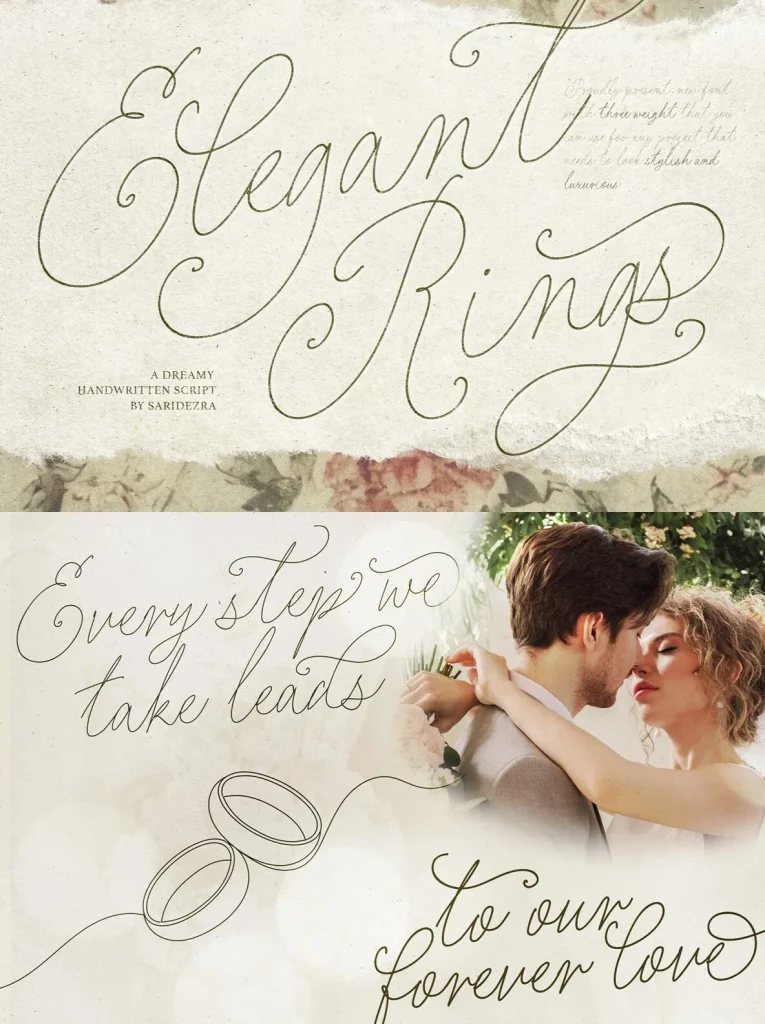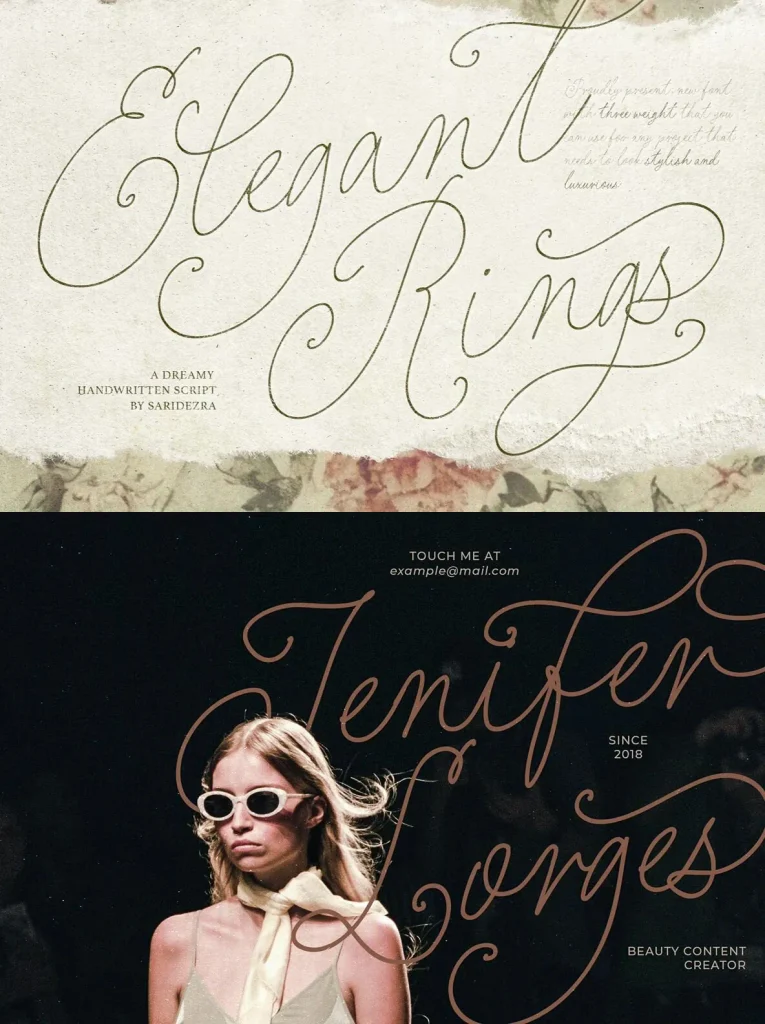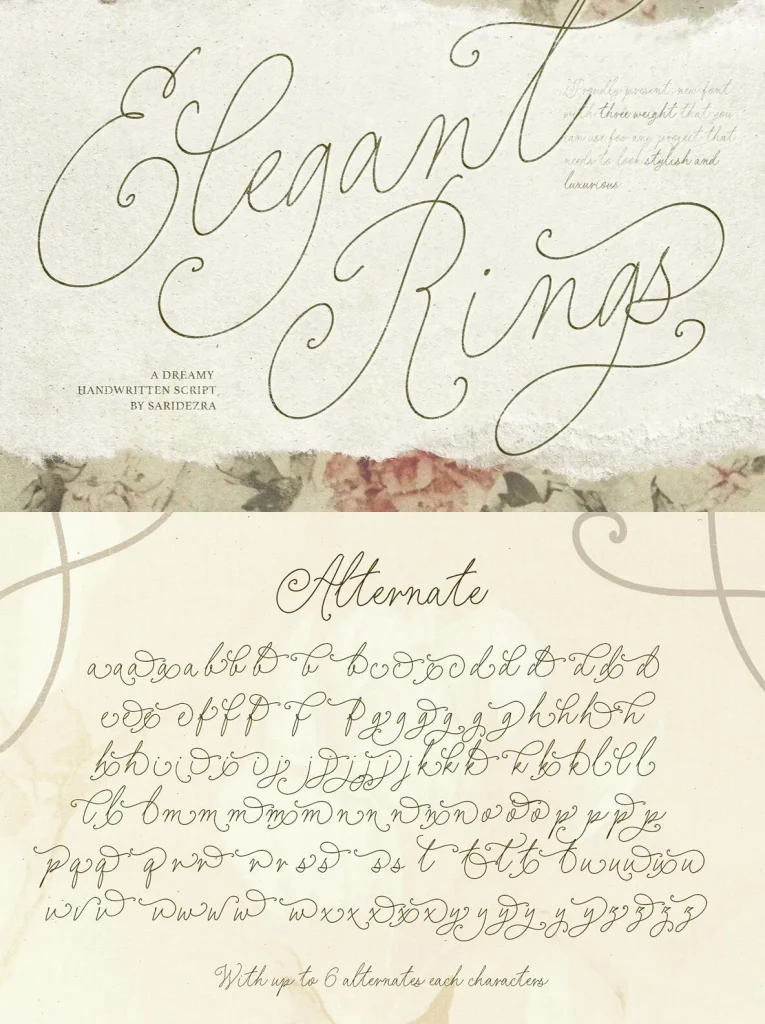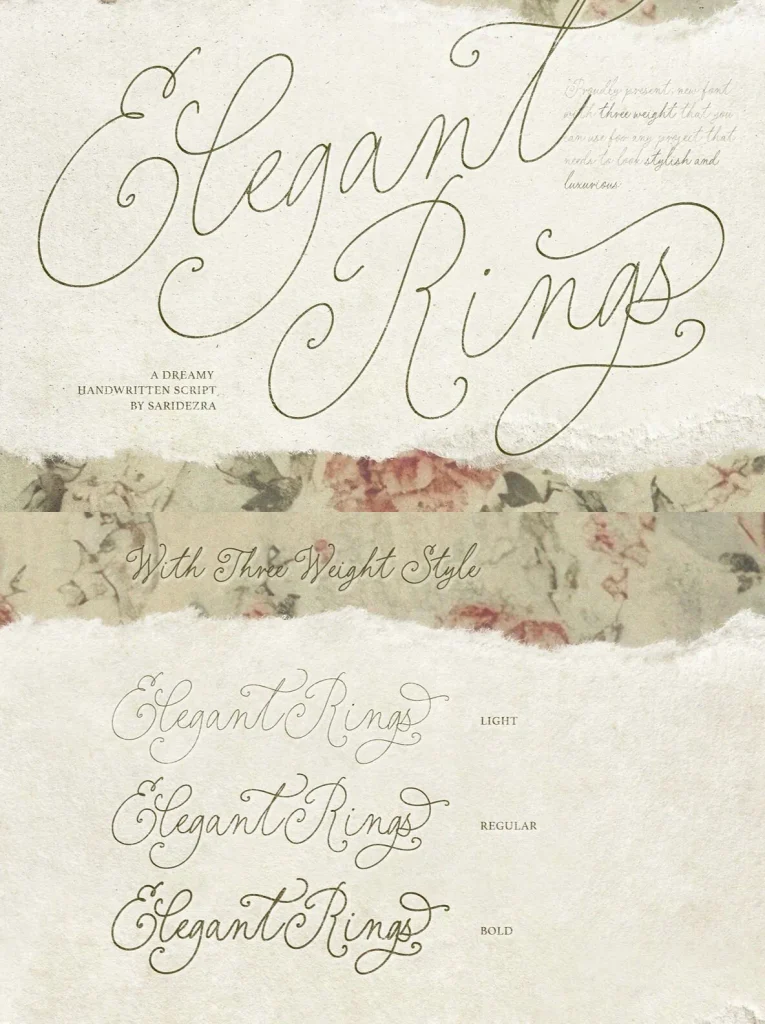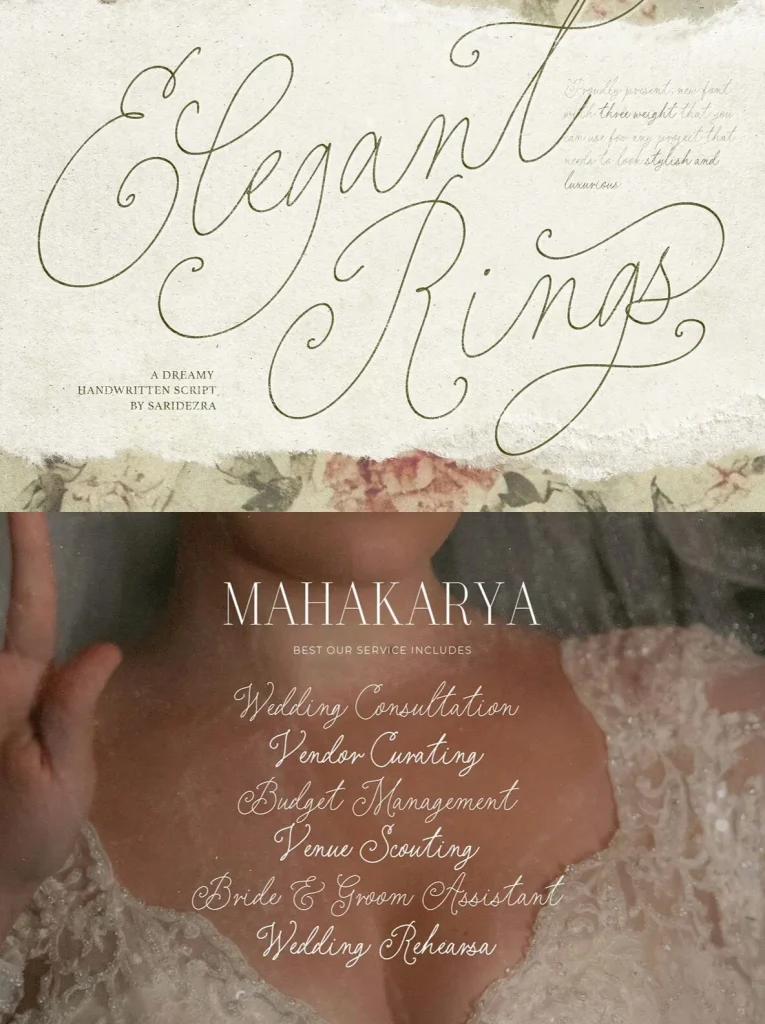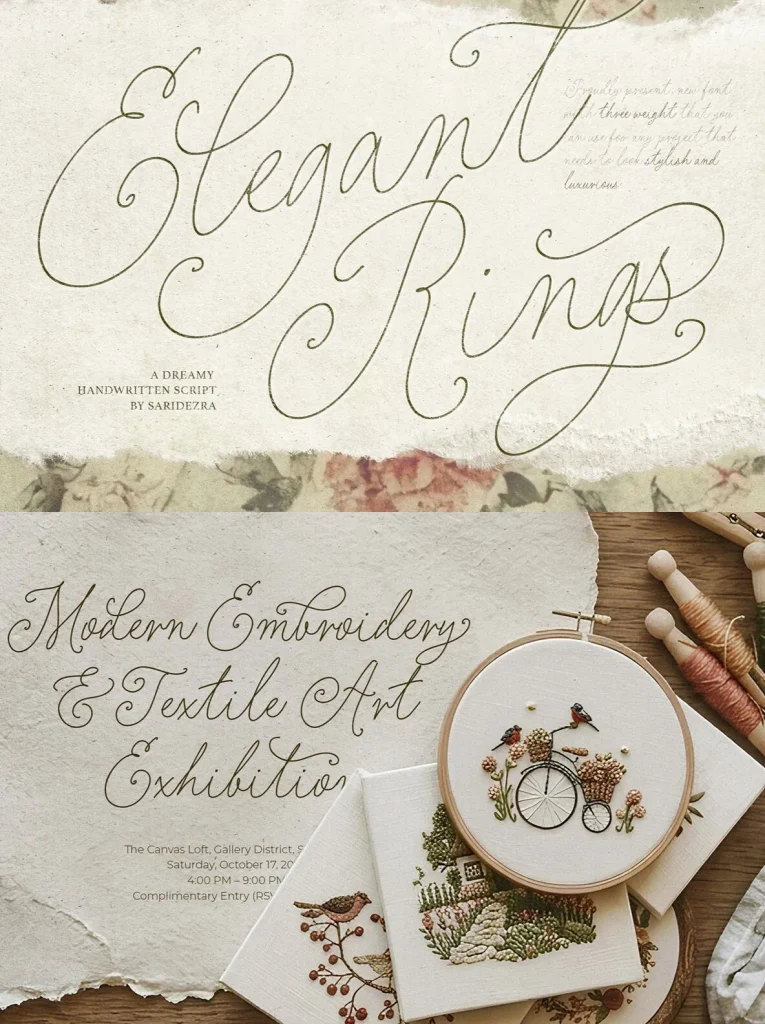
Elegant Rings Font
Elegant Rings — Script with Polished Grace
Elegant Rings is a new handwritten script font with a refined, stylish character. Its flowing forms suit designs that need a luxurious tone while still feeling personal and graceful.
The font comes in three weights, giving you practical range for delicate details, balanced text, and stronger display settings. Elegant Rings also includes up to 6 stylish alternates, so you can adjust letterforms and create more distinctive compositions. It supports multiple languages for broader use across branding and design projects.
Weights
Light
Regular
Bold
Suggested Uses
Elegant branding
Logotype
Wedding invitation
Any project that needs to look stylish and luxurious